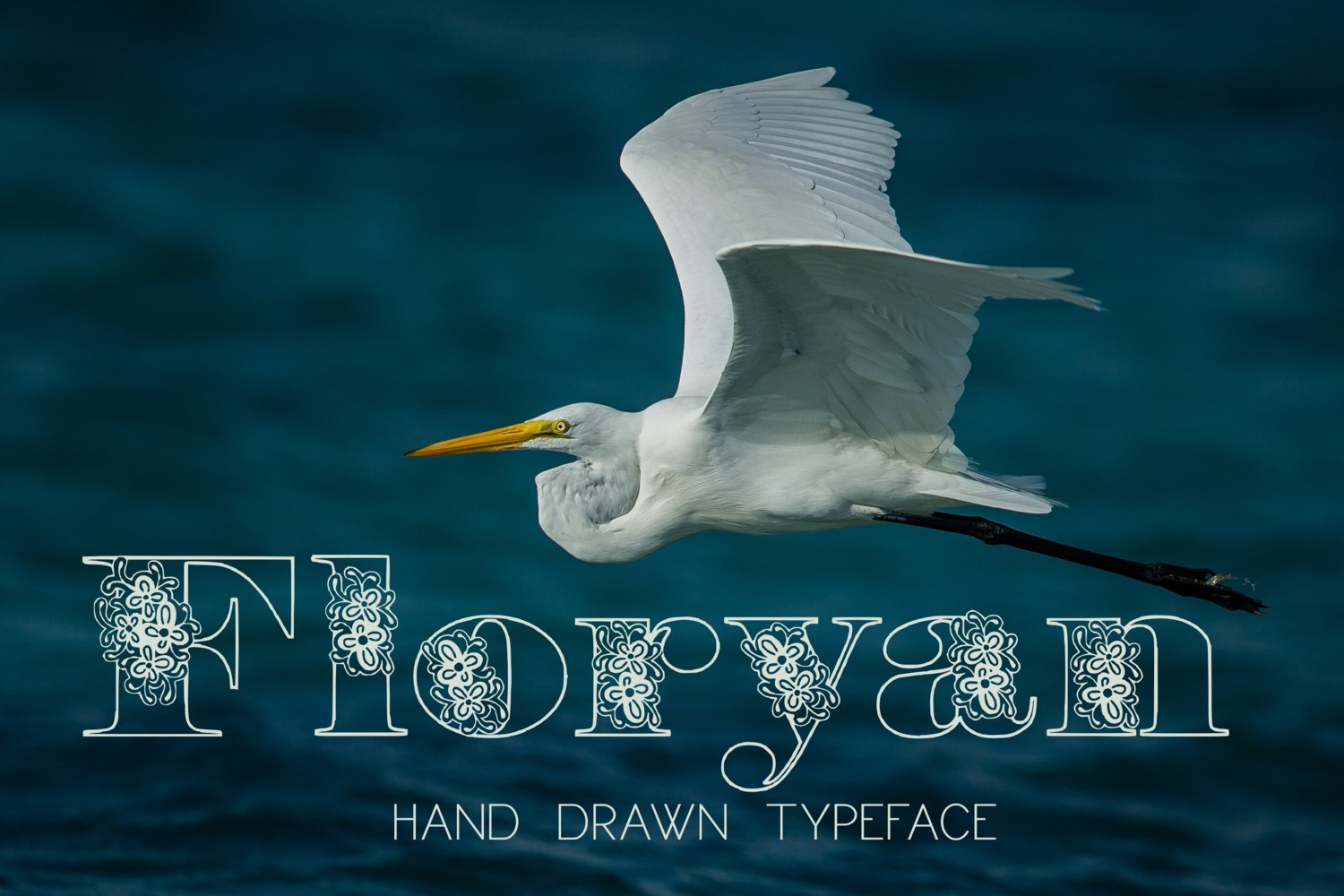
Floryan Font
Introducing Floryan, a delicate and light hand crafted typeface.
Floryan is great for cards, wedding designs, embroidery designs, titling, signage, logo, poster, flyers or t-shirts design, headlines, and more!